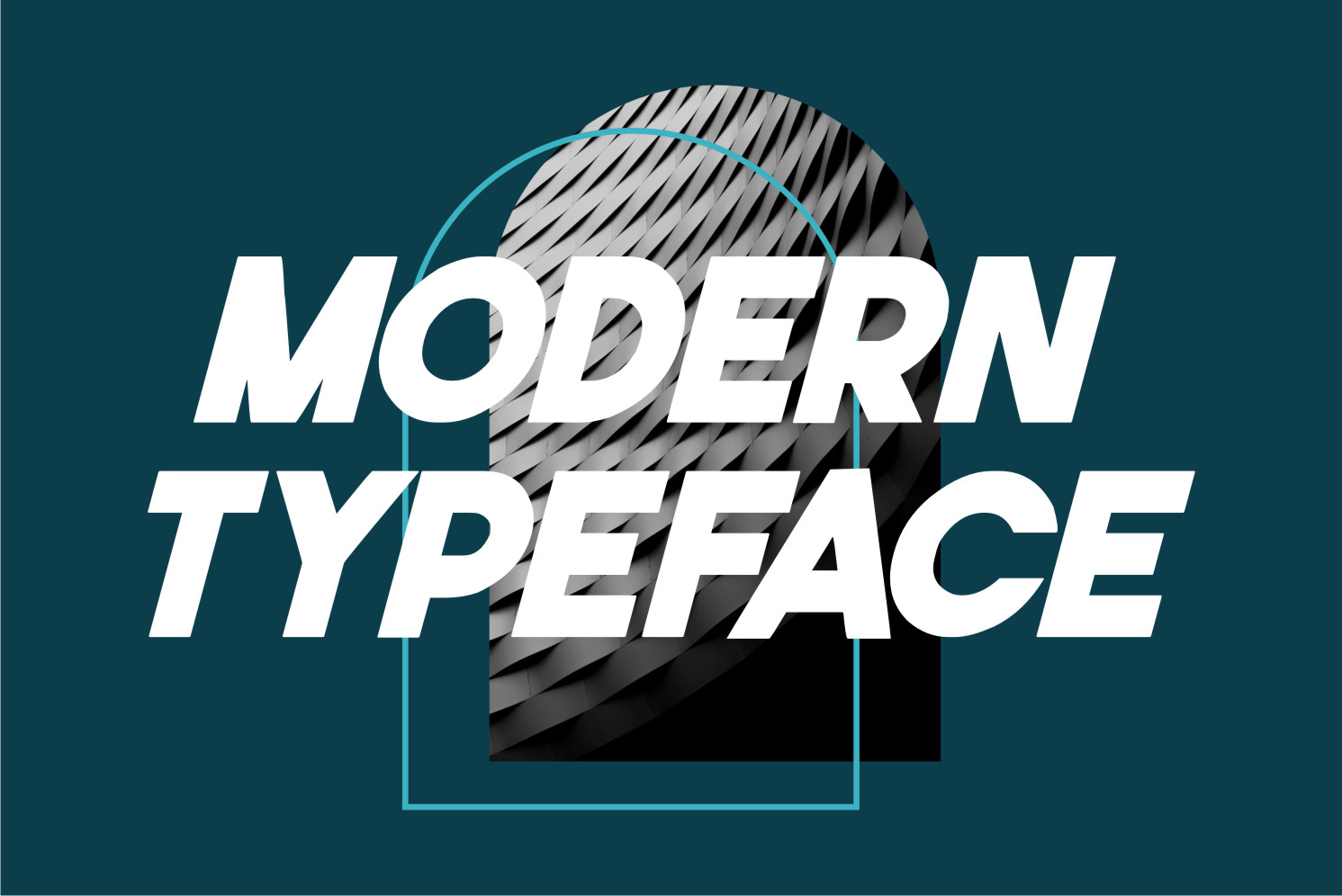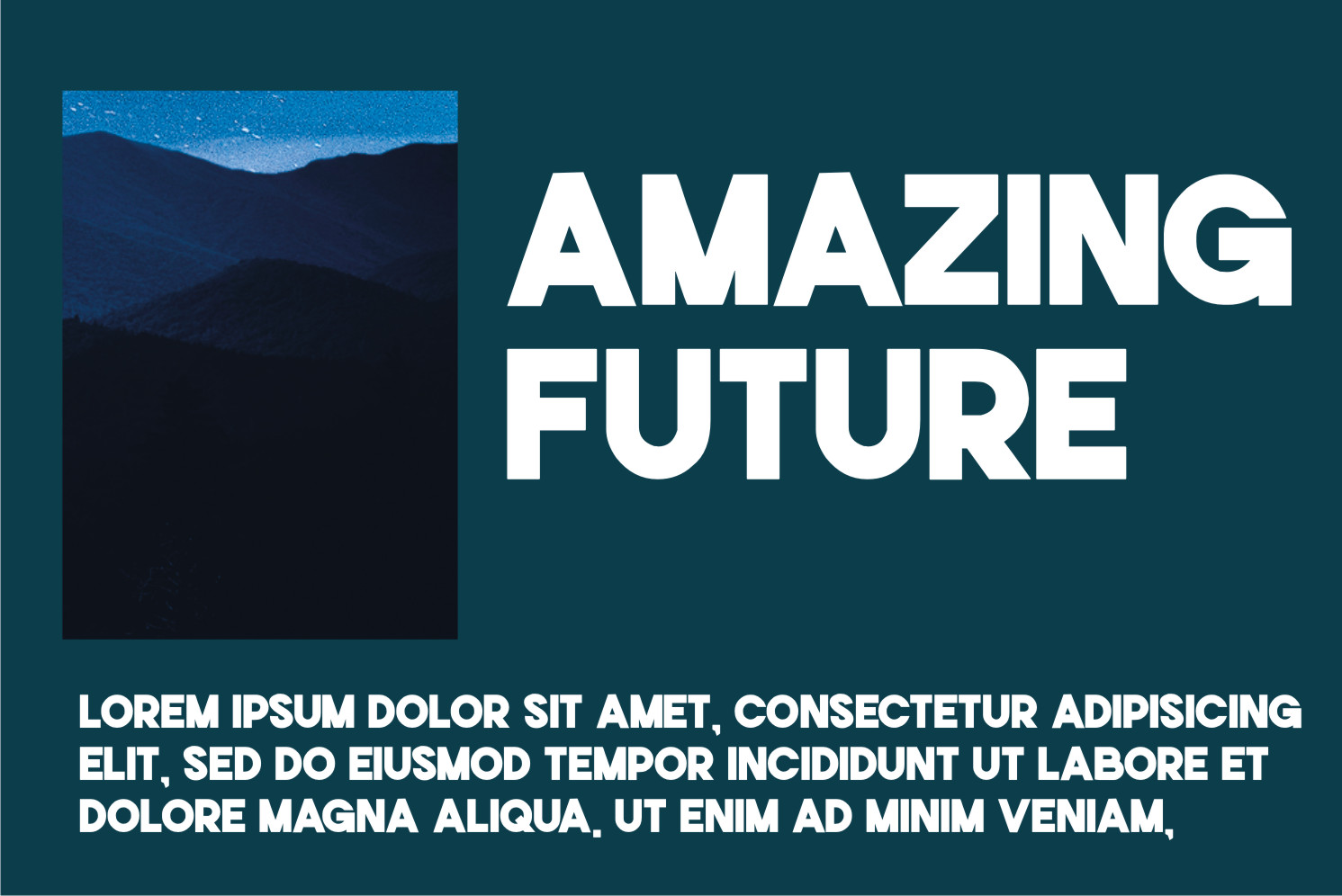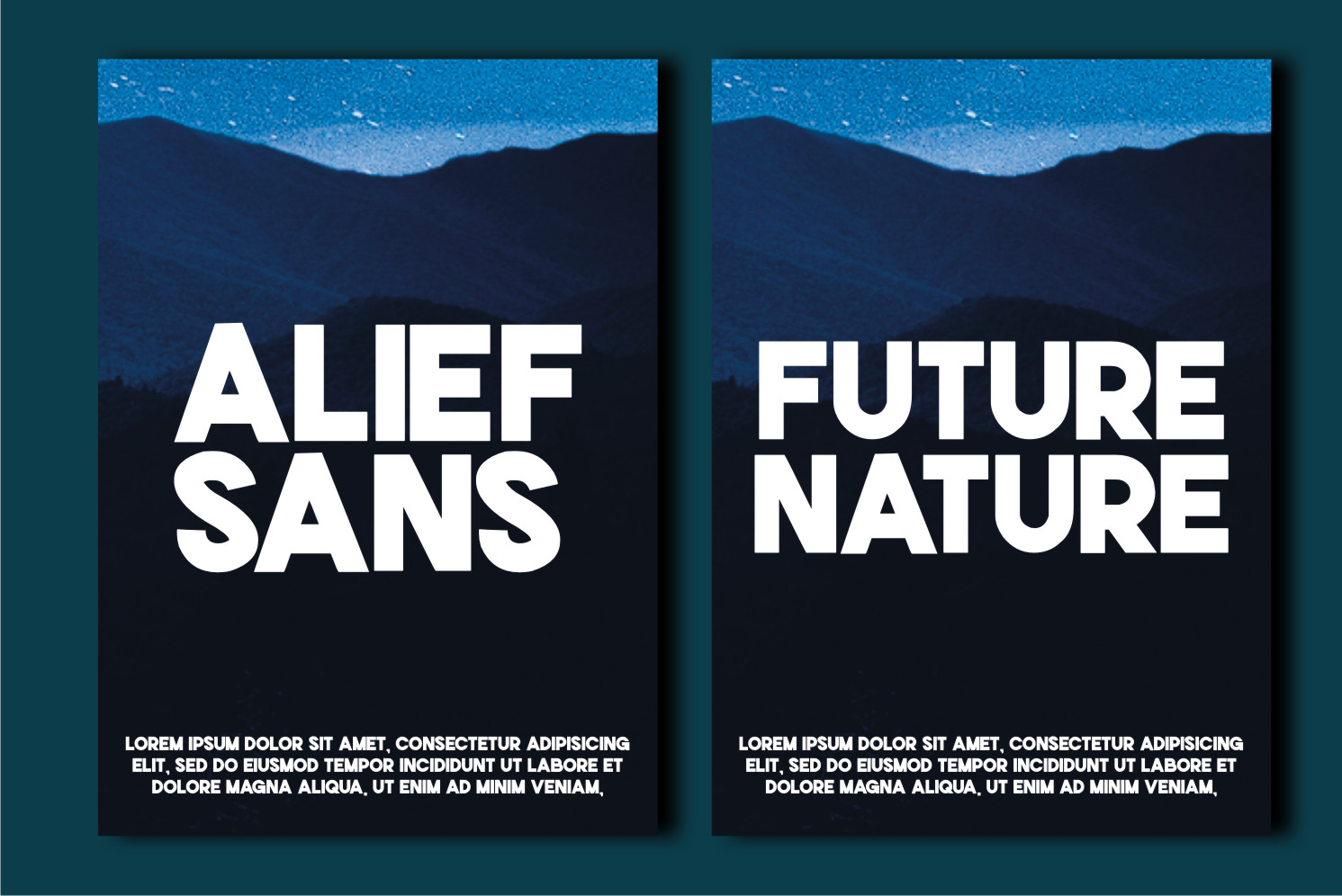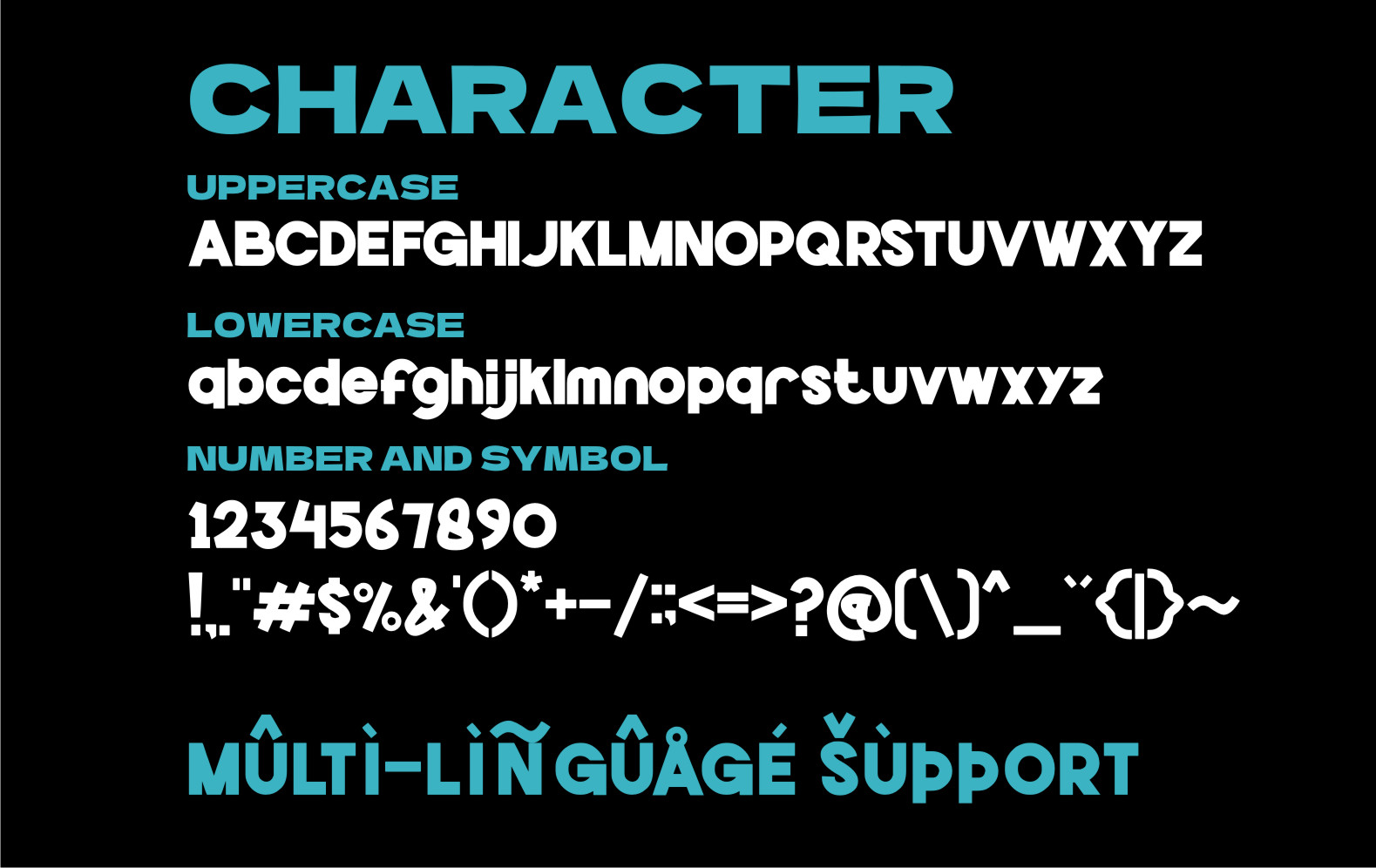
Eperfant Font
It's a bold, thick lettered sans serif font. No matter the topic, this font will be an incredible asset to your fonts’ library, as it has the potential to elevate any creation. Eperfant Font preview image 2Eperfant Font preview image 3Eperfant Font preview image 4Eperfant Font preview image 5
Eperfant Sans Serif Font
It’s a bold, thick lettered sans serif font. No matter the topic, this font will be an incredible asset to your fonts’ library, as it has the potential to elevate any creation.